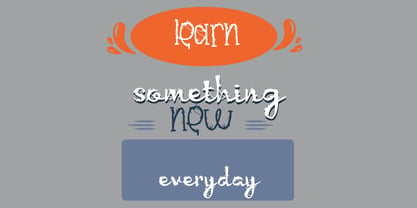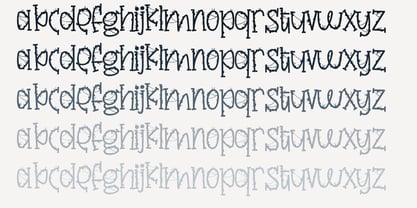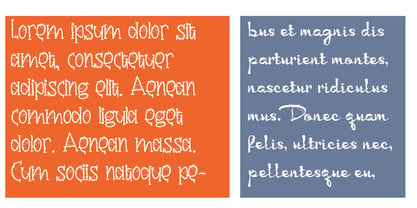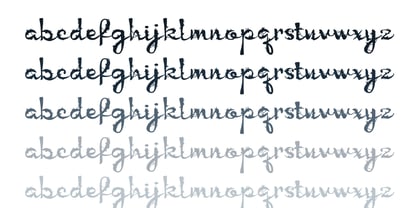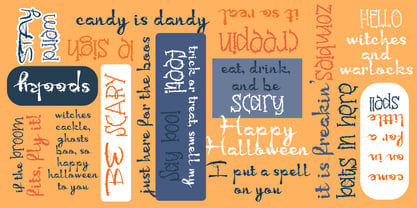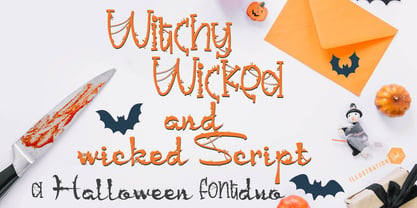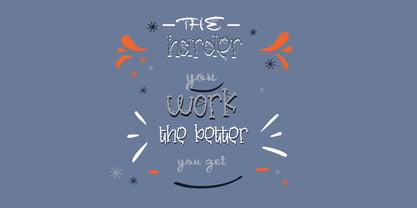
ZP Witchy Wicked
by Illustration Ink
The ZP Witchy Wicked Font Family was designed by Illustration Ink and published by Illustration Ink. ZP Witchy Wicked contains 6 styles and family package options. More about this family
This hand-crafted font duo is hand-crafted font with a fun, youthful print, covered in witch warts and a coordinated script that pairs perfectly. A hand-crafted font is a font that is designed to look like it was written by hand. It is often used for invitations, greeting cards, and other items. Handwritten fonts can be either formal or informal, and they can be used for a variety of purposes. Some of the characteristics of handwritten fonts include: ·The letters are not perfectly uniform in size or shape. ·There may be slight variations in the spacing between letters and words. ·The font may have a "wiggly" or "squiggly" appearance. ·The font may be difficult to read at small sizes. Handwritten fonts can be a great way to add a casual touch to your designs. They can also be used to create a sense of nostalgia or whimsy. However, it is important to choose a handwritten font that is appropriate for the project you are working on. A formal handwritten font may not be appropriate for a casual invitation, while an informal handwritten font may not be appropriate for a corporate document. .
Designers: Illustration Ink
Foundry: Illustration Ink